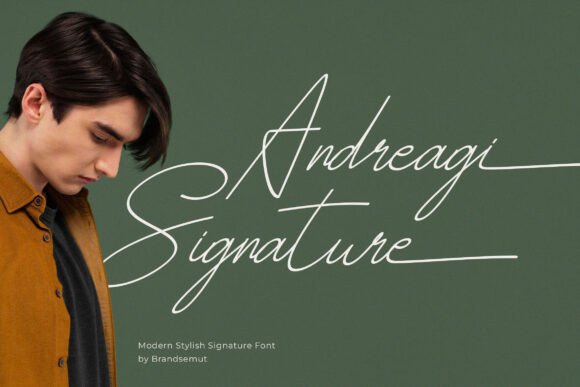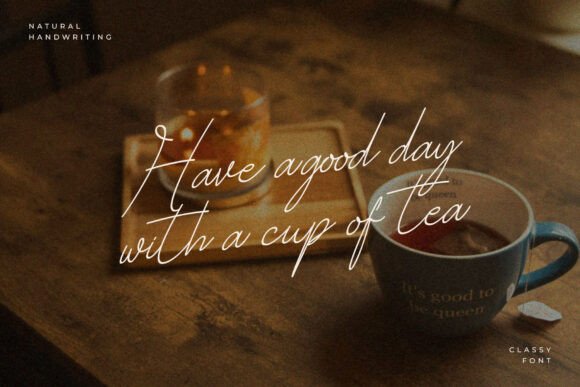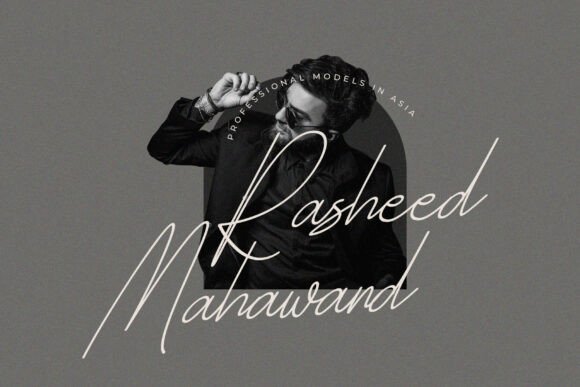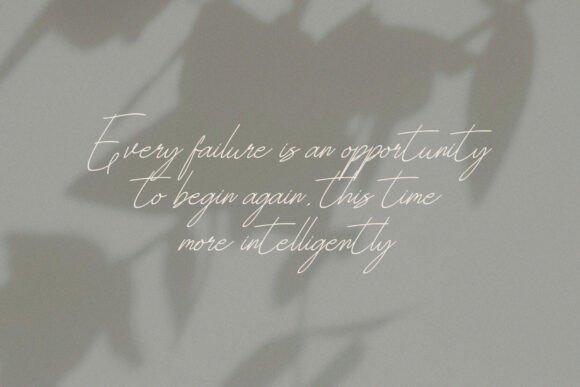
Andreagi Signature Font
About the Andreagi Signature Font
Step up your design game with Andreagi Signature Font, a font that exudes confidence and style. Introducing the new Andreagi Signature Font, an elegant and stylish handwritten script that you can use to perfect your design.
You will get a full set of lowercase and uppercase letters, multilingual, numerals, and punctuation.
Andreagi Signature Font’s elegant, flowing style makes it ideal for branding projects requiring a touch of sophistication, particularly logos, invitations, and short headlines. It also works well on packaging for high-end products or in short, impactful quotes within marketing materials. However, its intricate detail makes it unsuitable for body text or UI elements where readability is paramount. Avoid using it in long paragraphs or small sizes.
This script font’s inherent elegance is best complemented by pairing it with clean, modern sans-serif fonts like Montserrat or Open Sans for a balanced contrast. For a more traditional feel, a classic serif like Garamond or Playfair Display would create a sophisticated harmony. Avoid pairing it with other highly decorative fonts, as this could overwhelm the design.
The overall personality of Andreagi Signature Font is refined and sophisticated, conveying a sense of luxury and understated glamour. It’s best suited for brands aiming to project an image of quality, exclusivity, or timeless appeal.
Andreagi Signature Font Usage Examples
Andreagi Signature Font Example